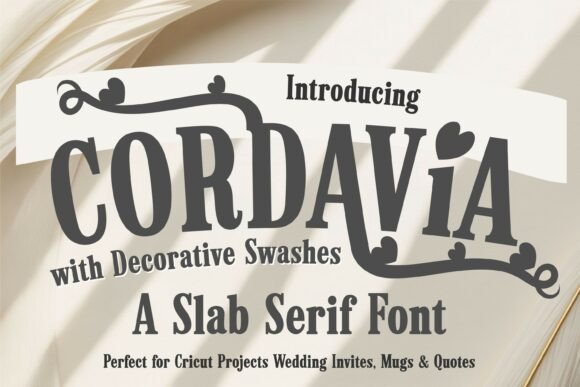
Cordavia Bold Swash Font: Elevate Your Designs with Elegance and Charm
Cordavia Bold Swash is a stunning serif font that combines playfulness with elegance, making it perfect for a wide range of creative projects. This beautiful font features decorative heart-tipped swashes and unique ligatures, adding a touch of romance and charm to any design. In this article, we’ll explore the features and benefits of Cordavia Bold Swash, and how it can elevate your designs, from Cricut projects to wedding invitations, branding, and more.
A Font that Speaks to the Heart
Cordavia Bold Swash is more than just a font – it’s a way to express your emotions and bring your words to life. The bold style and expressive swashes of this font make it perfect for creating eye-catching designs that capture the heart. Whether you’re designing a wedding invitation, a love note, or a heartfelt quote, Cordavia Bold Swash is the ideal choice. Its unique and elegant design will add a touch of sophistication and romance to your project, making it truly unforgettable.
Key Features of Cordavia Bold Swash
Cordavia Bold Swash comes with a range of features that make it a versatile and practical font for any designer. Some of its key features include:
- Uppercase and lowercase letters
- Numbers and punctuation
- Alternates and multilingual support
- Decorative heart-tipped swashes
- Unique ligatures
These features make Cordavia Bold Swash perfect for a wide range of creative projects, from logos and branding to packaging and special occasions.
Perfect for Cricut Projects
Cordavia Bold Swash is a great choice for Cricut projects, such as cutting vinyl, iron-on designs, or paper crafts. The font’s bold style and decorative swashes make it perfect for creating eye-catching designs that will stand out. Whether you’re making a custom sign, a personalized gift, or a decorative item, Cordavia Bold Swash is the ideal font to use.
Ideal for Wedding Invitations and Love Notes
Cordavia Bold Swash is a romantic and elegant font that is perfect for wedding invitations, love notes, and other special occasions. The font’s decorative swashes and unique ligatures add a touch of sophistication and romance to any design, making it truly unforgettable. Whether you’re designing a wedding invitation, a love letter, or a Valentine’s Day card, Cordavia Bold Swash is the ideal choice.
Branding and Packaging
Cordavia Bold Swash is not just limited to personal projects – it’s also perfect for branding and packaging. The font’s bold style and decorative swashes make it perfect for creating eye-catching logos, labels, and packaging designs. Whether you’re designing a new brand identity or updating an existing one, Cordavia Bold Swash is a great choice.
Multilingual Support
Cordavia Bold Swash comes with multilingual support, making it perfect for designers who work with clients from around the world. The font supports a wide range of languages, including English, Spanish, French, German, Italian, and more.
Tips for Using Cordavia Bold Swash
Here are some tips for using Cordavia Bold Swash in your designs:
- Use it for headlines and titles to add a touch of elegance and sophistication
- Pair it with a simple sans-serif font for a contrasting look
- Experiment with different colors and textures to add depth and interest
- Use the decorative swashes and ligatures to add a touch of personality to your design
Cordavia Bold Swash is a beautiful and versatile font that is perfect for a wide range of creative projects. Its elegant design, decorative swashes, and unique ligatures make it ideal for adding romance and charm to any design. Whether you’re designing a wedding invitation, a logo, or a heartfelt quote, Cordavia Bold Swash is the perfect choice. With its multilingual support and range of features, this font is a must-have for any designer looking to elevate their designs.